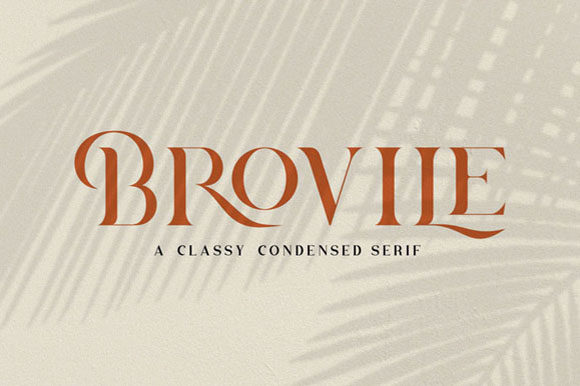
The Brovile Font: A Serif Sensation for Your Design Projects
Ah, the elusive perfect font. You know, that one design element that can make or break a project. I recall working on a logo design for a client, spending hours trying to find the right fit. The design was almost complete, but the font just wasn’t cooperating. That’s when I stumbled upon Brovile, a lovely serif font that instantly elevated the entire project. In this article, we’ll dive into what makes Brovile special, its uses, and some practical tips on how to make the most of it.
An Honest Review of Brovile
• ✨ Elegant serif design that’s perfect for logos, editorials, and web design
• ✅ Highly versatile and pairs well with other fonts
• ✅ Easy to read, even at smaller font sizes
• ✅ Supports multiple languages
While Brovile is an excellent font, there are a few things to keep in mind:
• ⚠️ Some users may find the font too delicate for certain design applications
• 🤔 Limited availability of stylistic alternates, which may not offer as much flexibility for some designers
The Story Behind Brovile
Brovile was designed with the intention of creating a versatile serif font that could be used across various design applications. The designer aimed to craft a font that was both elegant and legible, with a unique character that would stand out in any design. While the exact details of the design process are not publicly known, it’s clear that Brovile has been carefully crafted to meet the needs of designers.
Font Name Brovile Font
Author Hanzel Studio
Q: What type of projects is Brovile best suited for?
A: Brovile is a versatile font that can be used for a wide range of projects, including logos, editorials, web design, and more.
Q: Does Brovile support OpenType features?
A: Yes, Brovile supports OpenType features, including ligatures and stylistic alternates.